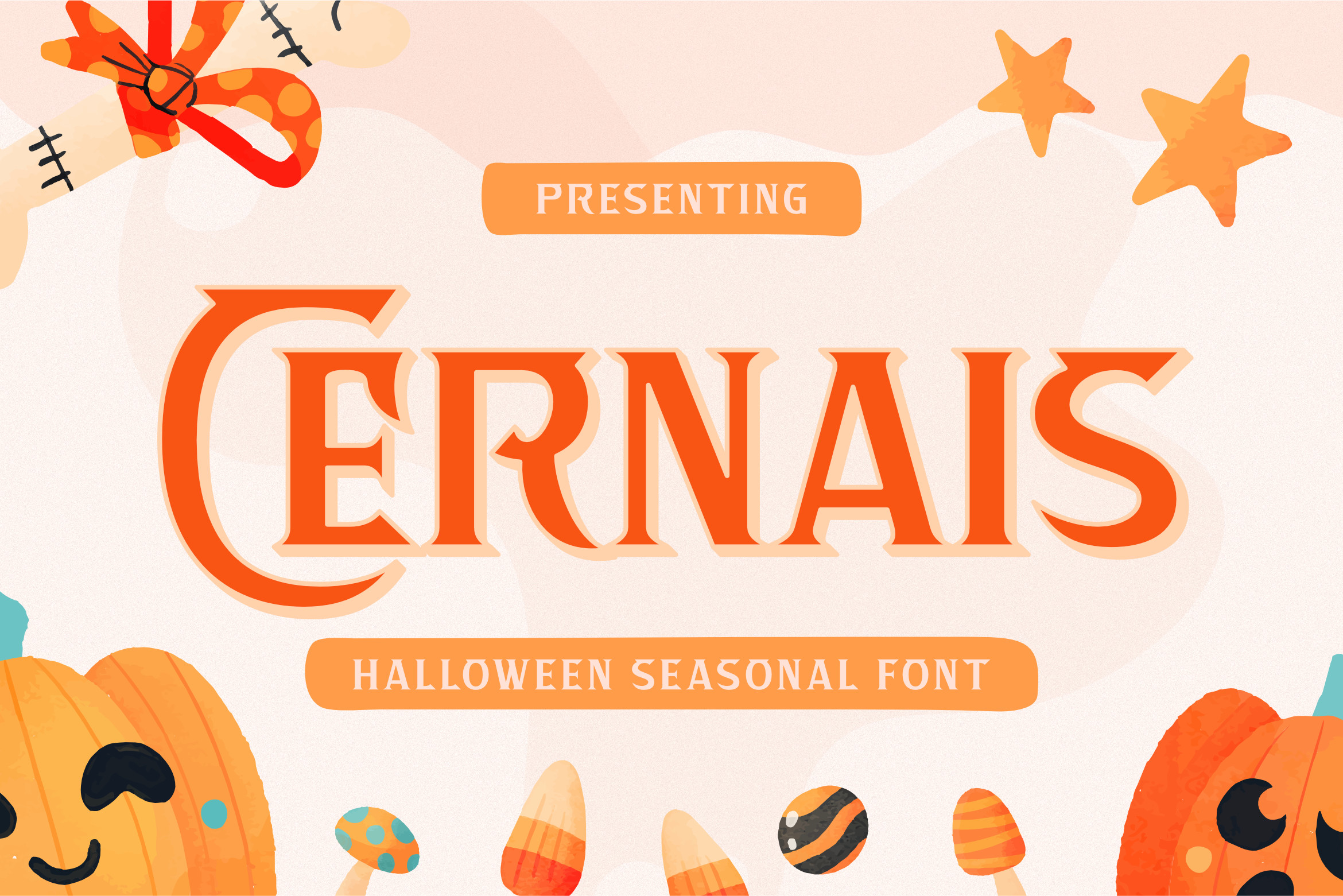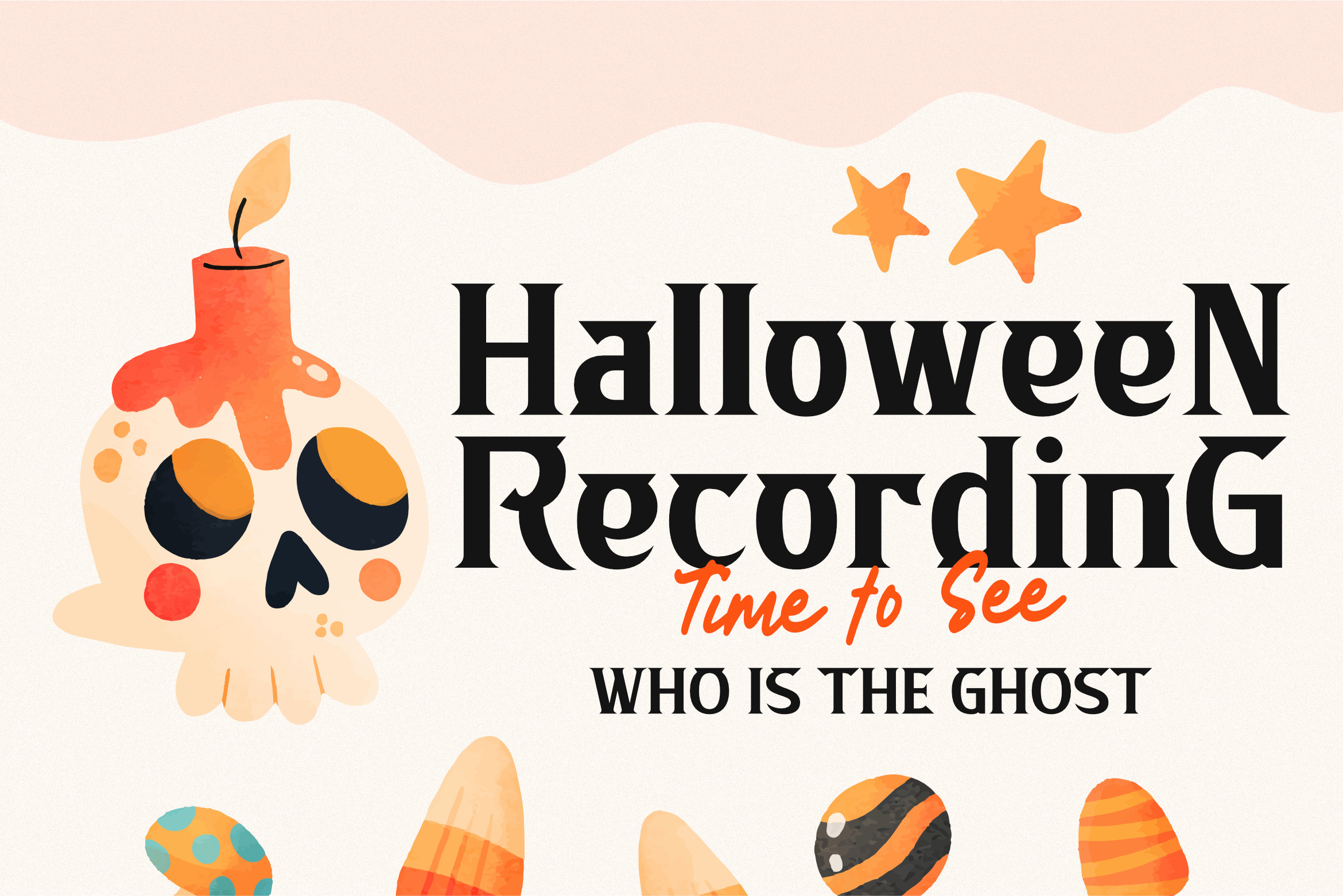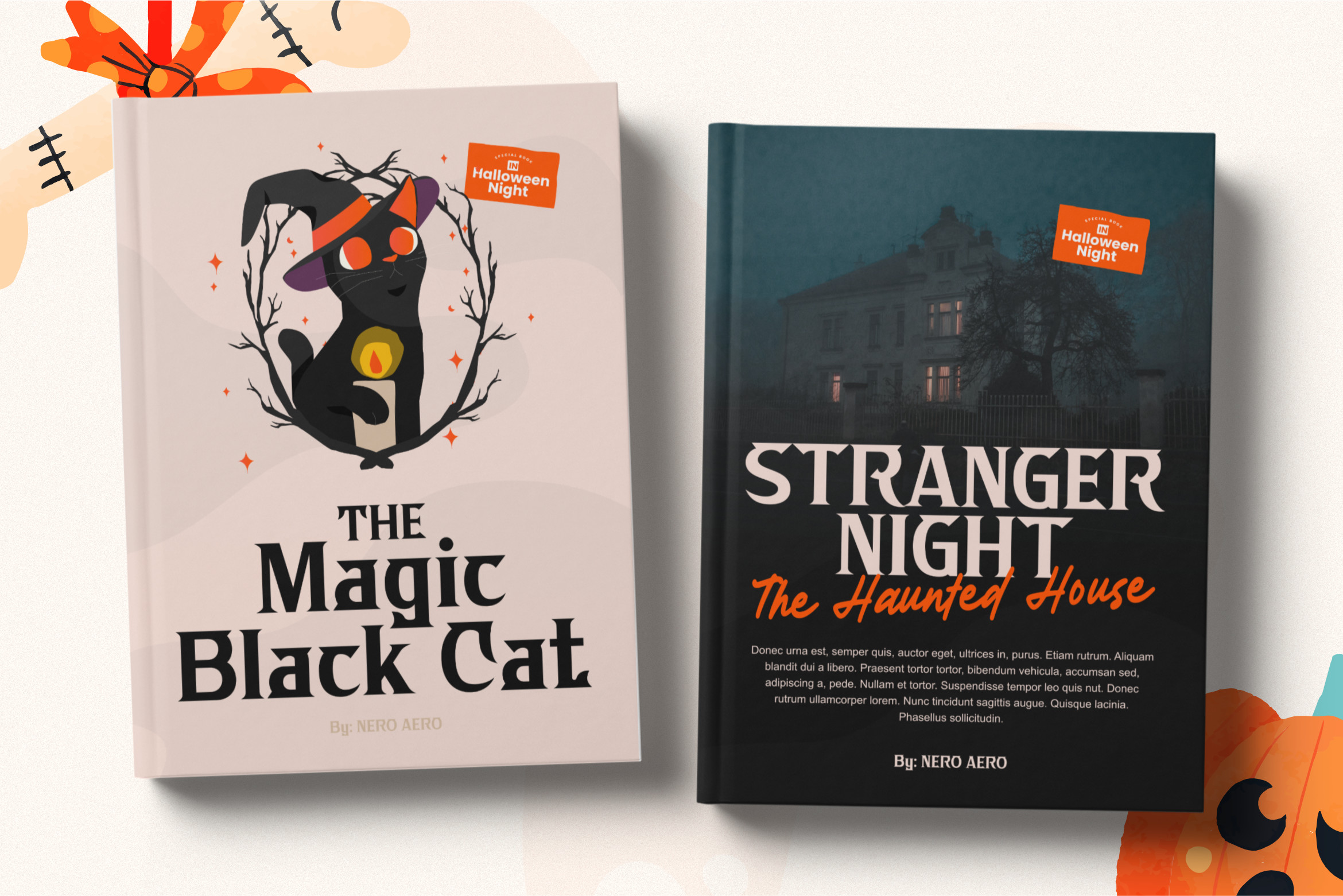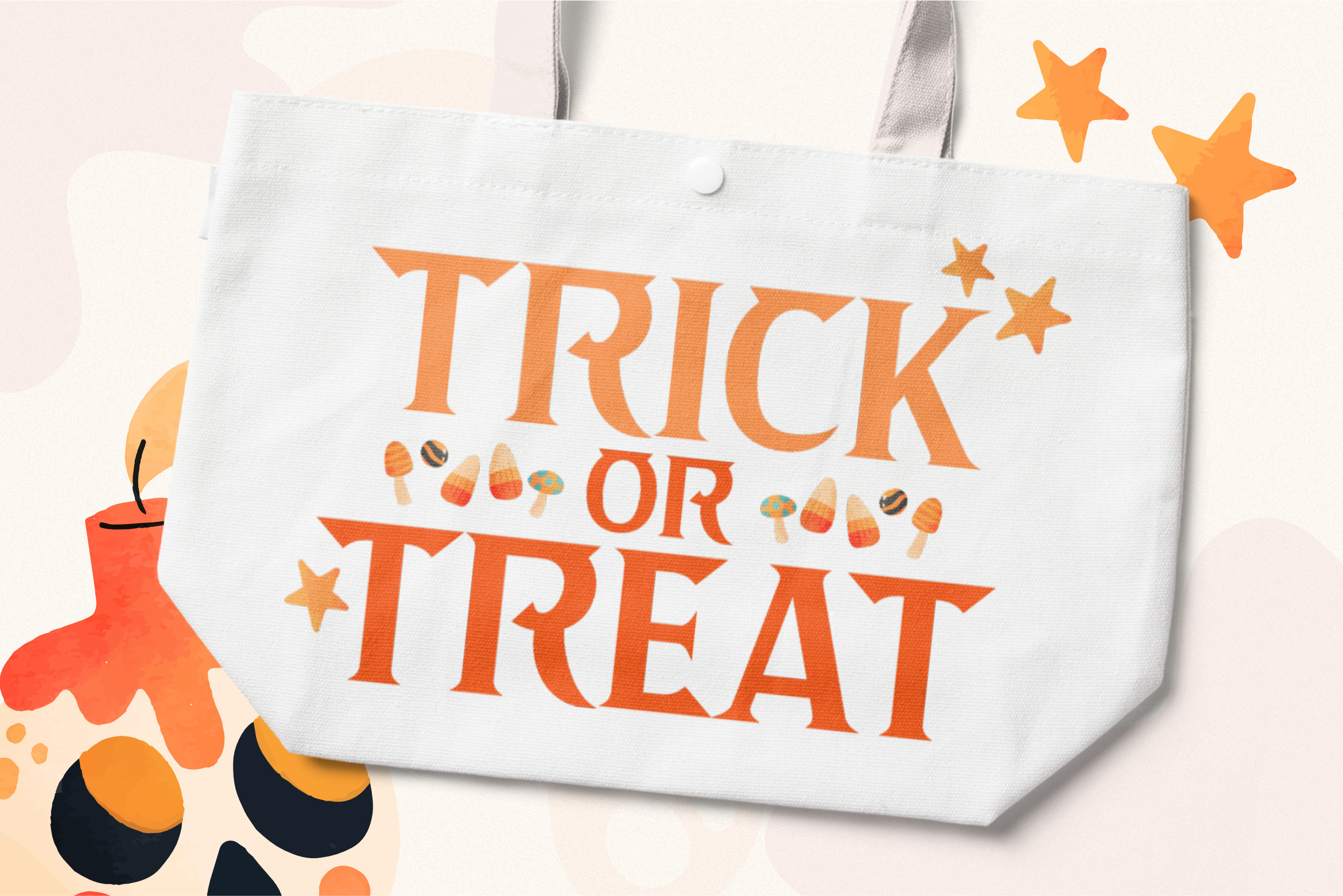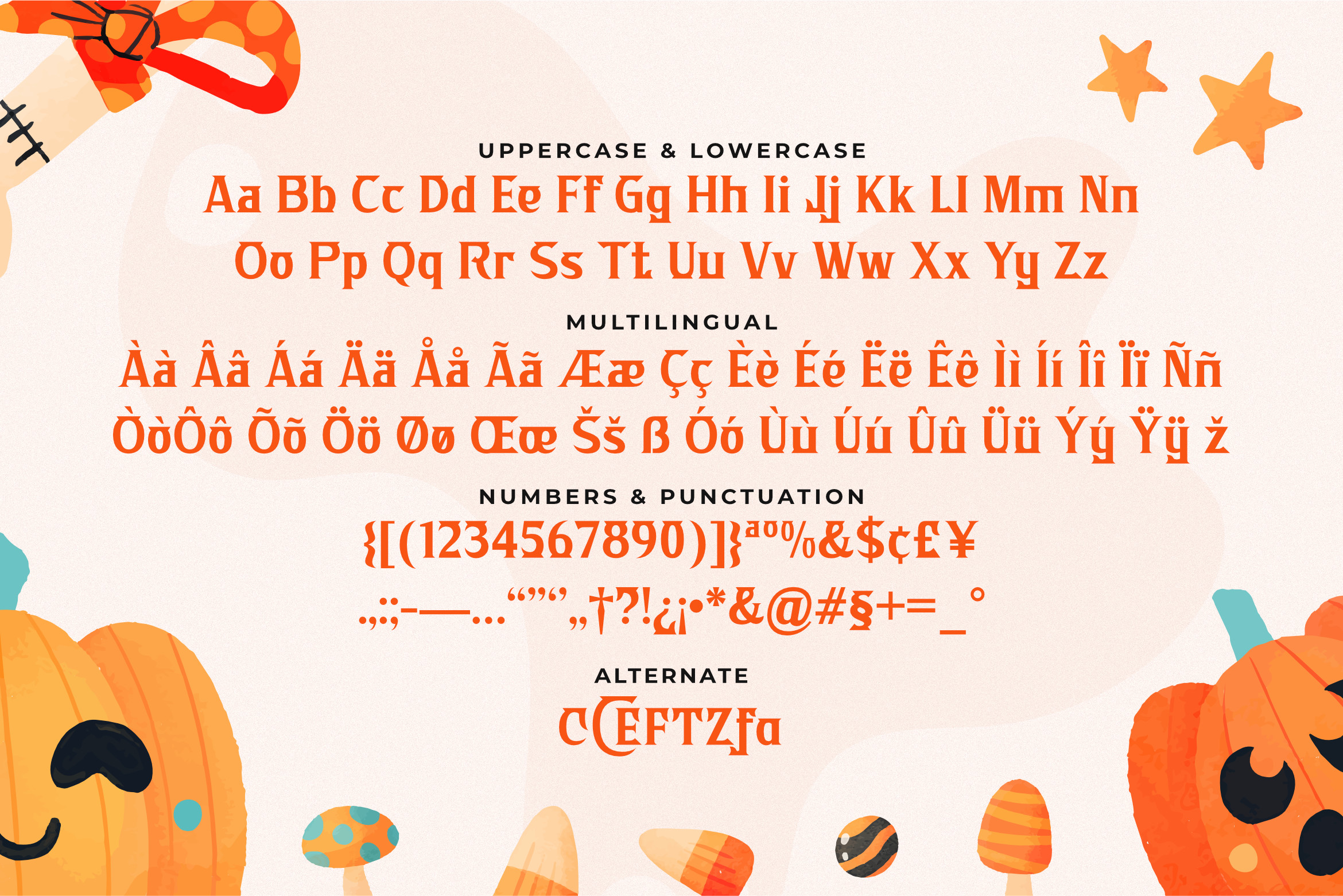
Cernais is a charming Halloween seasonal font that blends classic serif elegance with playful spooky vibes. Its refined curves and whimsical details make it ideal for both festive and lighthearted Halloween designs. From cute trick-or-treat bags and book covers to party invitations and social media graphics. The font radiates a warm, magical atmosphere perfect for autumn creativity.
Featuring uppercase and lowercase characters, alternate letters, multilingual support, and full punctuation, Cernais is both versatile and expressive. Whether you’re crafting a kids’ Halloween story or branding seasonal packaging, Cernais brings a delightful, storybook-style personality to your work.
Cernais